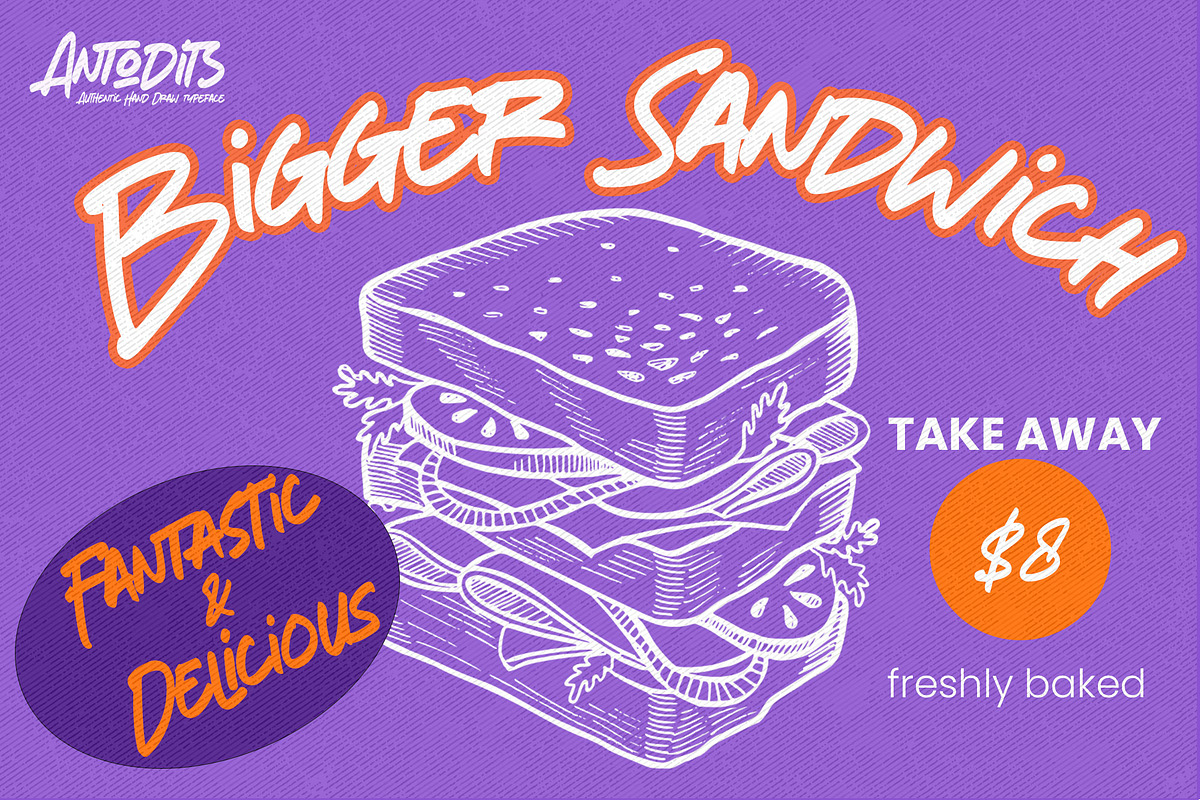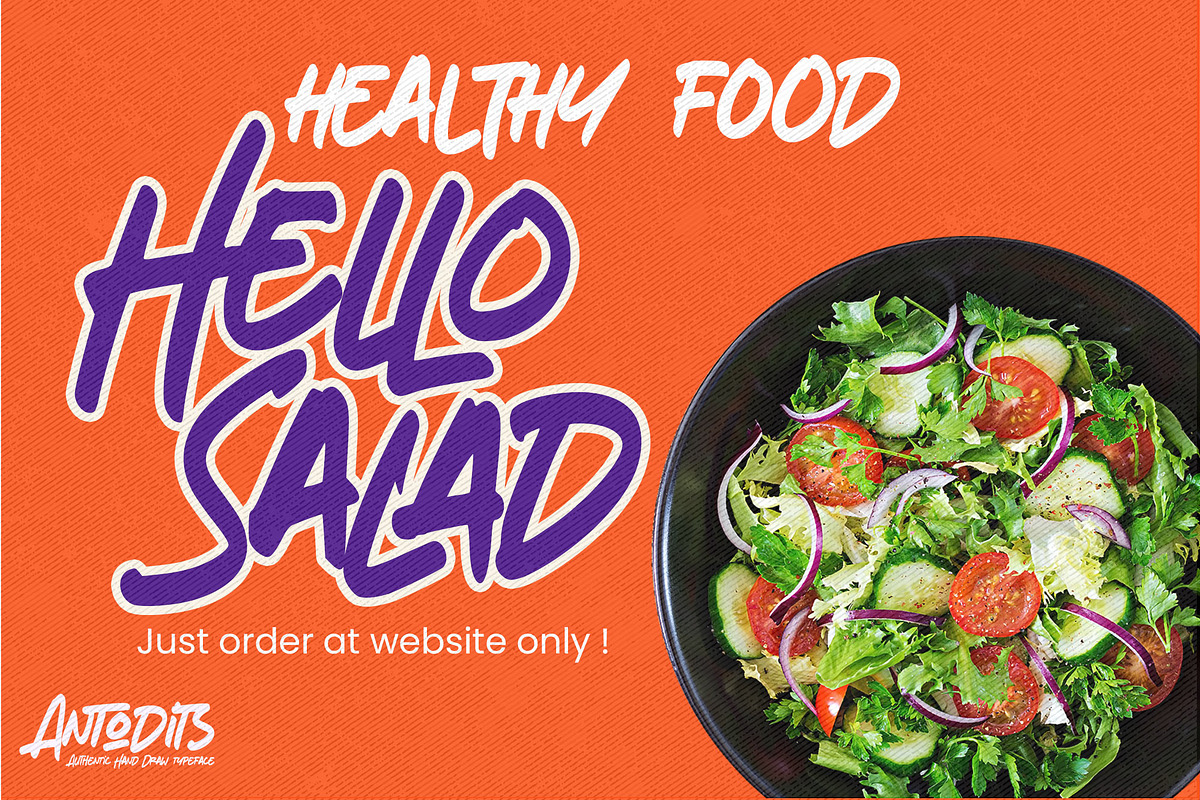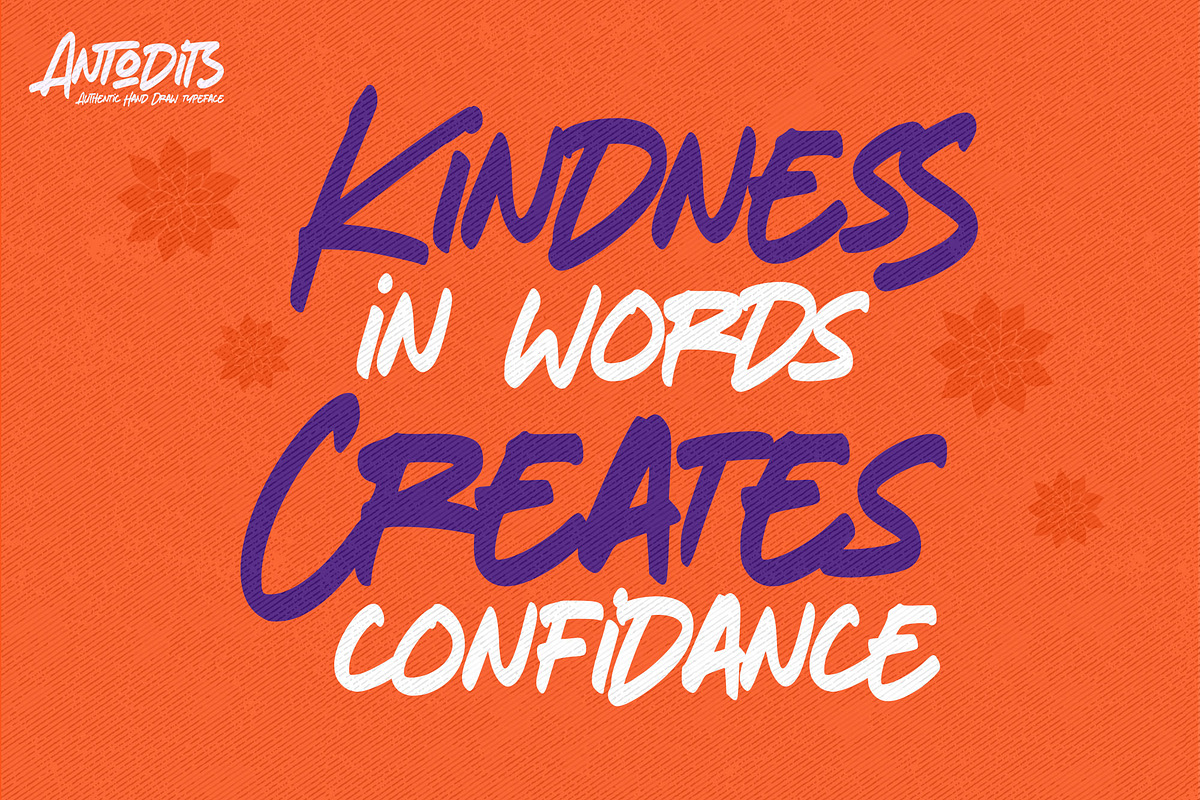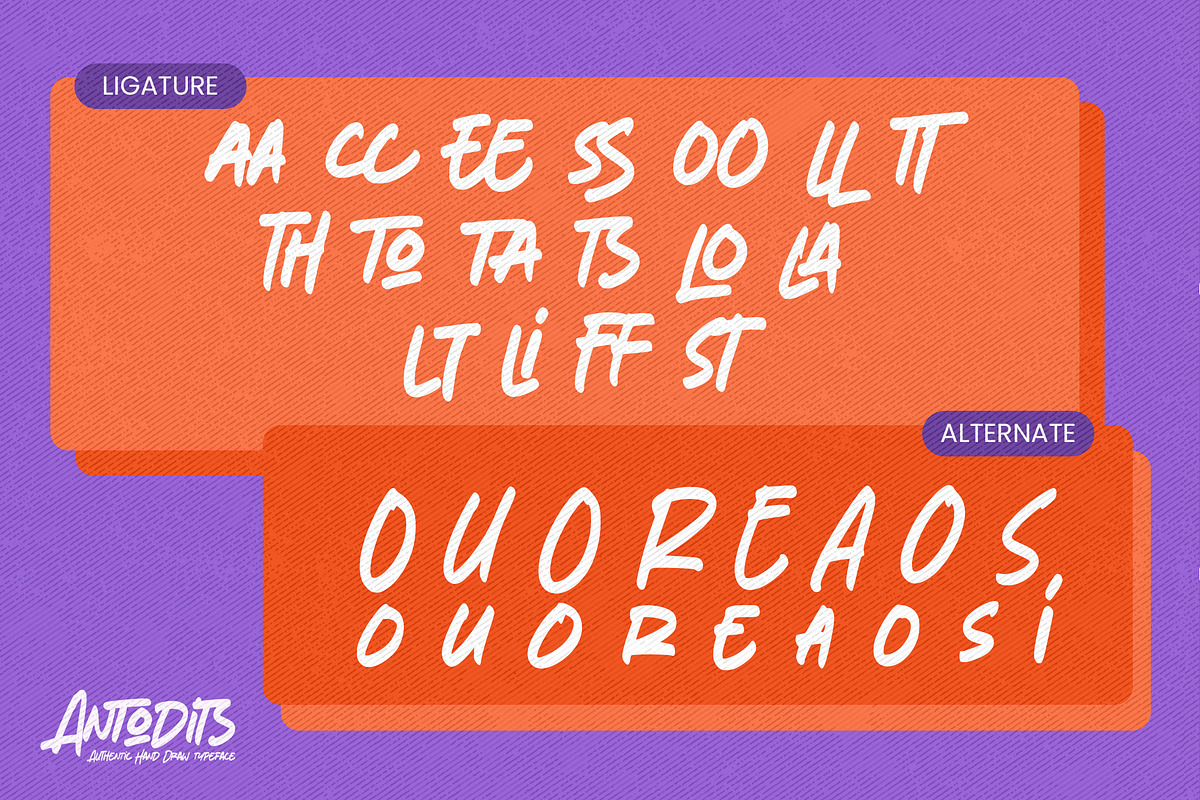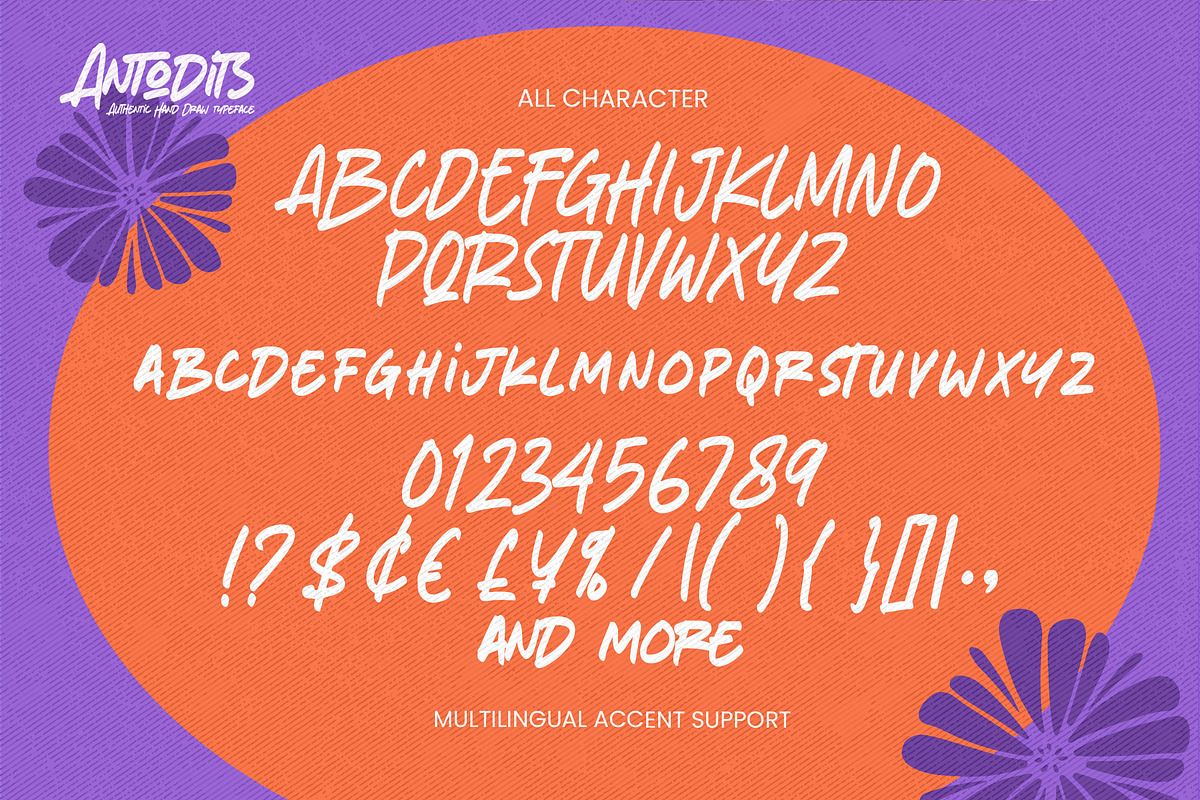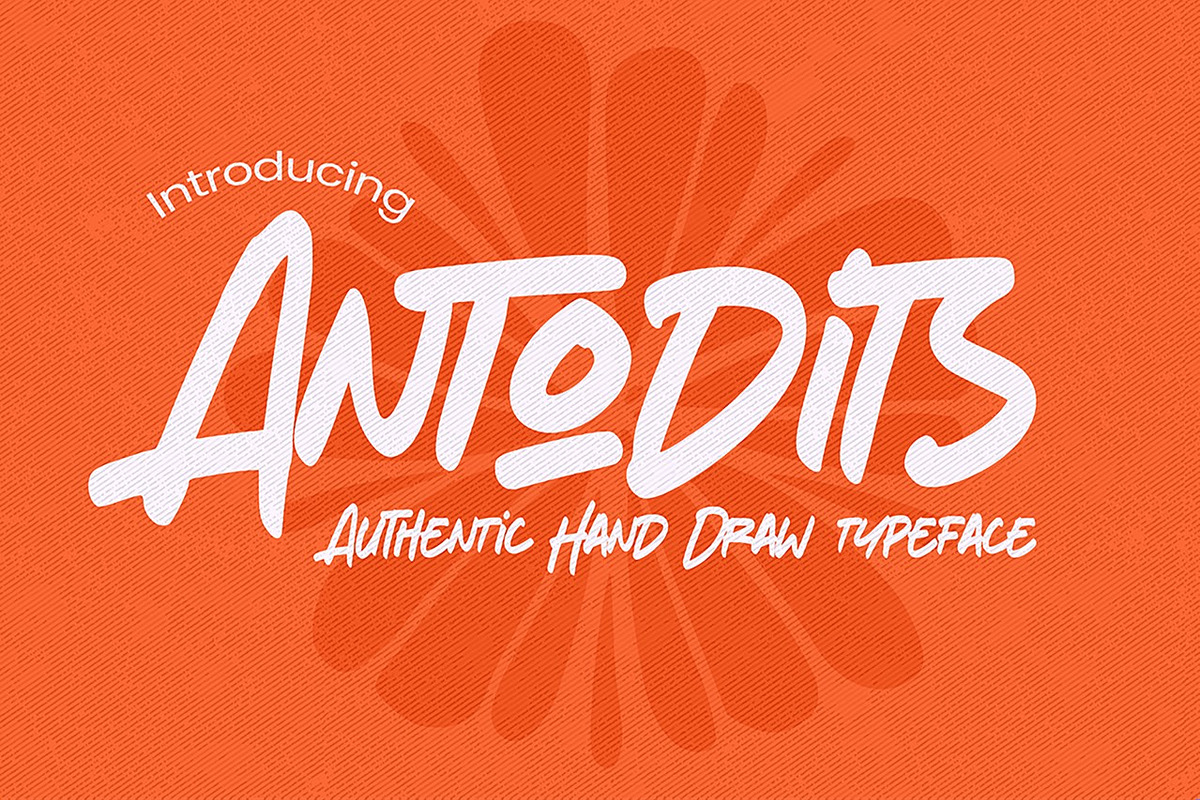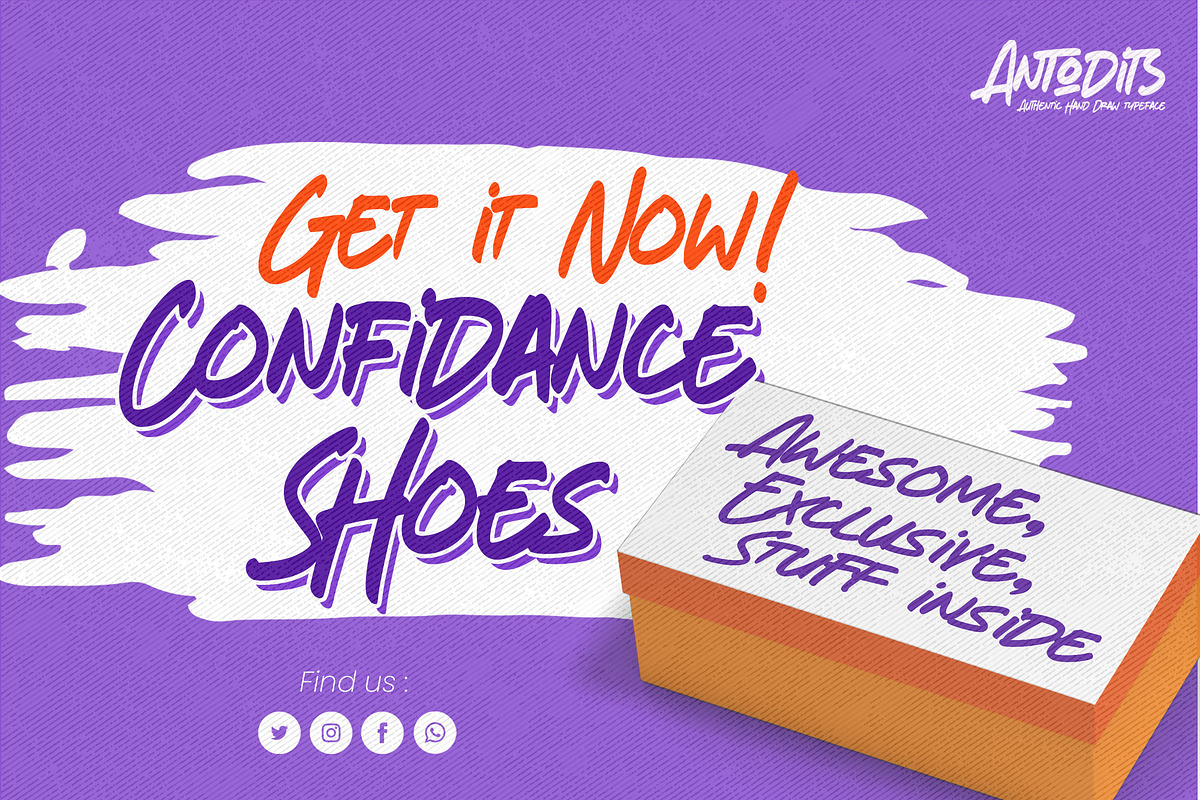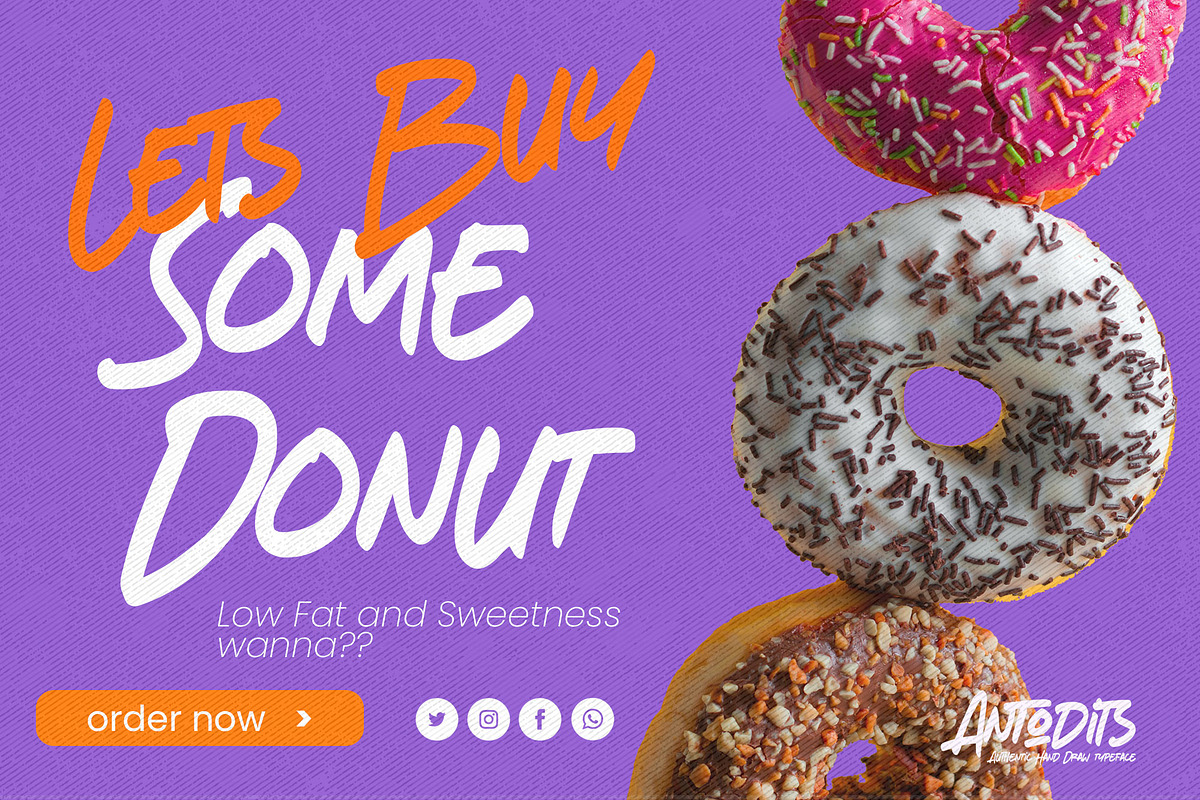
Antodits - Authentic Hand Drawn Type
Here comes a New font,Introducing Antodits is Authentic Hand Drawn Typeface is a Natural Style and classy style, this font is great for your creative projects such as watermark on photography, and perfect for logos & branding, invitation,advertisements,product designs, stationery, wedding designs,label ,product packaging, special events or anything that need handwritting taste.
Antodits a natural Hand Drawn feel. This handmade font will make your design has a beautiful natural touch for each details. It is perfect for any design project as Invitation,logo, book cover, craft or any design purposes,photos, photography overlays, signs, window art, scrapbooking, tags and so much more! This font is PUA encoded which means you can access all of ligatures and Alternate glypsh.
- Ligatures glyphs
- Alternate glyphs